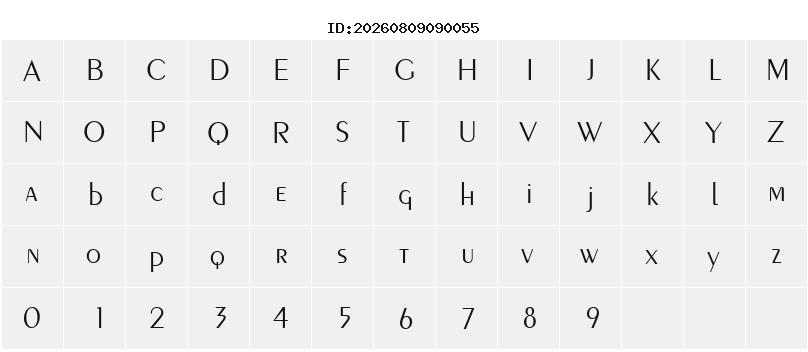
• Font Name: Peridot
• Font ID: Altsys Fontographer 3.5 Peridot Regular
• Full Font Name: Peridot Regular
• Version: Altsys Fontographer 3.5 2/21/98
• PostScript Name: Peridot-Light
• Character Count: 230
• Copyright: Copyright Rubicon Computer Labs Inc., 1997. Release 1.1
About Peridot.ttf
Peridot.ttf is a modern, elegant sans-serif font designed for ultimate readability and visual harmony. Perfect for branding, headlines, web design, and print materials.